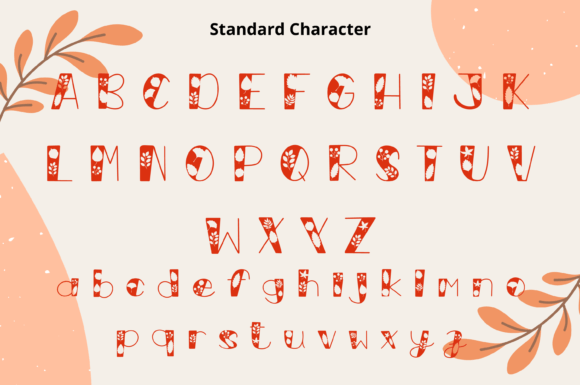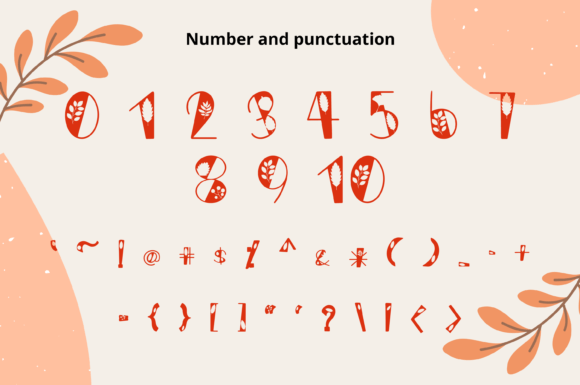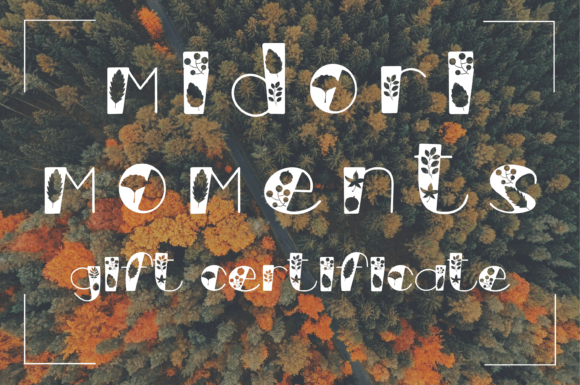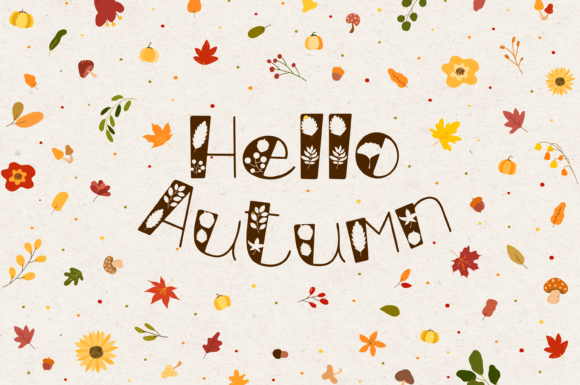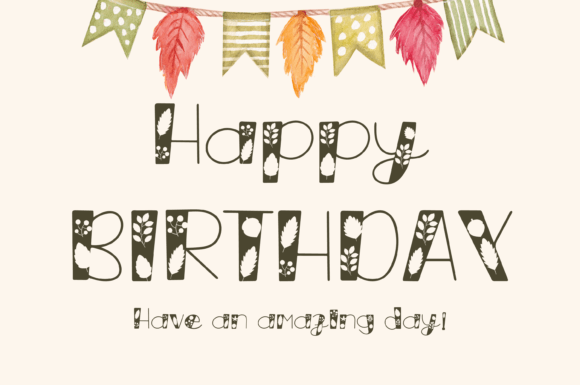
Introducing Autumn November Font: Add a Touch of Whimsy to Your Designs
As the seasons change and autumn leaves start to fall, designers and crafters are on the lookout for fresh inspiration to add a touch of warmth and coziness to their projects. If you’re looking for a font that captures the essence of autumn, look no further than Autumn November Font. This whimsical and cute decorative display font is perfect for adding a playful twist to your creative ideas.
What Makes Autumn November Font So Special?
Autumn November Font is a unique and eye-catching font that can easily be matched to an incredibly large set of projects. Whether you’re working on a seasonal greeting card, a fall-themed craft, or a autumn-inspired branding project, this font is sure to make your designs stand out. Its whimsical and decorative style is perfect for adding a touch of personality to your work.
Key Features of Autumn November Font
- Whimsical and Cute: Autumn November Font has a playful and charming style that’s perfect for autumn-themed projects.
- Decorative Display Font: This font is designed to make a statement, with intricate details and a bold, eye-catching style.
- Versatile: Autumn November Font can be used for a wide range of projects, from greeting cards and crafts to branding and advertising.
- Easily Matchable: This font can be paired with a variety of other fonts and design elements to create a unique and cohesive look.
How to Use Autumn November Font in Your Designs
Autumn November Font is incredibly easy to use, even for designers who are new to working with decorative fonts. Here are a few tips for incorporating this font into your projects:
- Pair it with a Simple Font: For a bold and eye-catching look, pair Autumn November Font with a simple, clean font.
- Add it to Your Headlines: Use Autumn November Font to add a touch of whimsy to your headlines and titles.
- Experiment with Colors: Autumn November Font looks great in a variety of colors, from warm autumnal hues to bright and bold shades.
Autumn November Font is a must-have for designers and crafters who are looking to add a touch of autumn magic to their projects. Whether you’re working on a commercial project or a personal craft, this font is sure to inspire your creativity and help your designs stand out.
Some popular uses for Autumn November Font include:
- Fall-themed crafts and DIY projects
- Branding and advertising projects
Autumn November Font is a unique and eye-catching decorative display font that’s perfect for adding a touch of whimsy to your designs. With its playful and charming style, this font is sure to make your projects stand out. Whether you’re a designer or crafter, Autumn November Font is a must-have for anyone looking to add a touch of autumn magic to their work.